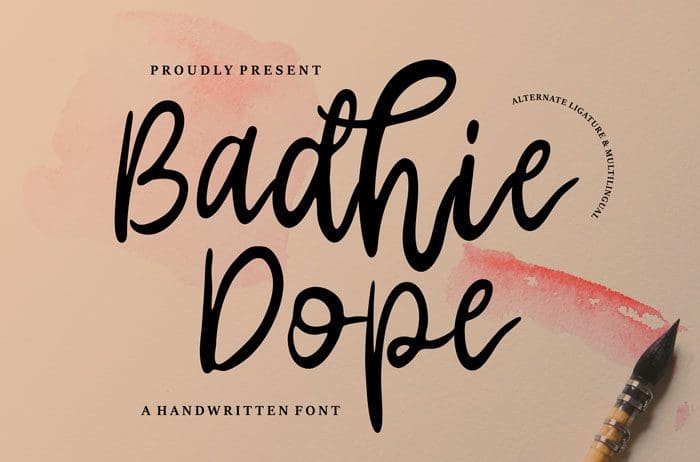
Badhie Dope Handwritten Font
Badhie Dope is a hipster Handwritten Font, featuring a beautiful flow. It can be used for logos, headings, labels, news, posters, badges and so much more. Thanks to Vunira Studio for sharing this font! Take a look at this portfolio for more of his stunning fonts.